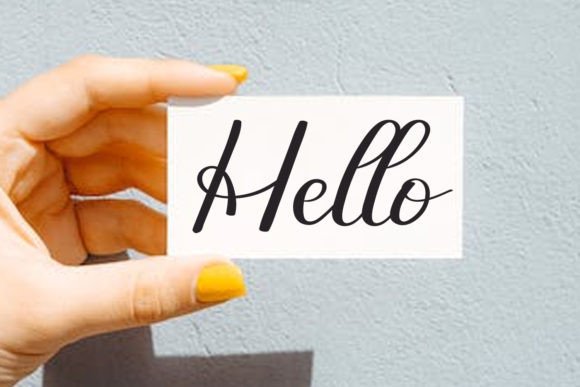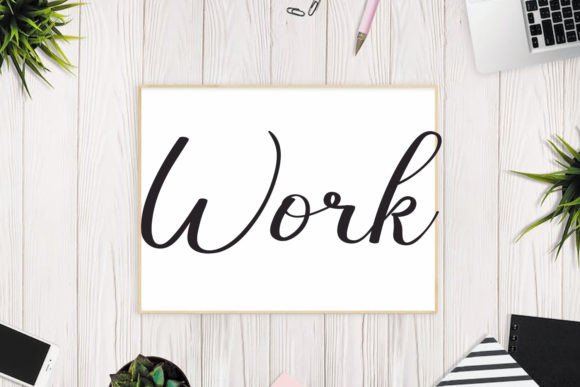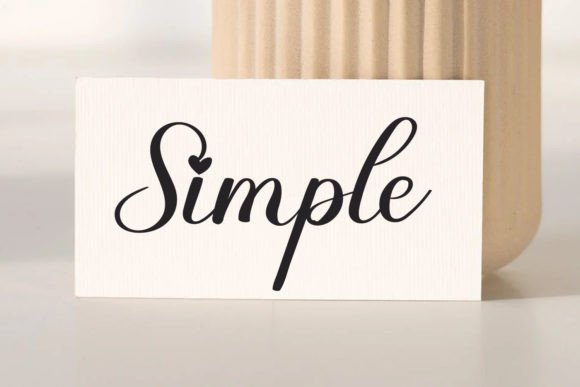
Introducing Christmas Font: A Fresh and Beautiful Handwritten Font for Your Design Needs
Are you looking for a font that captures the essence of the holiday season? Look no further than Christmas Font, a fresh and beautiful handwritten font that’s perfect for a wide range of design purposes. From YouTube banners and cover logos to wedding invitations, ID cards, flyers, and crafts, this versatile font is sure to add a touch of festive flair to your designs.
What Makes Christmas Font So Special?
Christmas Font is a unique and elegant handwritten font that’s been carefully crafted to evoke the magic and wonder of the holiday season. Its fresh and beautiful design makes it perfect for designers and crafters who want to add a personal touch to their work. Whether you’re creating a festive YouTube banner, a wedding invitation, or a handmade craft, this font is sure to impress.
Key Features of Christmas Font
- Handwritten Design: Christmas Font features a beautiful handwritten design that’s perfect for adding a personal touch to your designs.
- Fresh and Beautiful: This font’s fresh and beautiful design makes it perfect for a wide range of design purposes, from festive holiday designs to more formal applications like wedding invitations and ID cards.
- Versatile: Christmas Font is a versatile font that can be used for a wide range of design purposes, including YouTube banners, cover logos, wedding invitations, ID cards, flyers, crafts, and more.
- Easily Readable: This font is designed to be easily readable, making it perfect for designs that require a clear and concise message.
Uses for Christmas Font
Christmas Font is a versatile font that can be used for a wide range of design purposes. Here are some ideas to get you started:
- YouTube Banners and Cover Logos: Add a touch of festive flair to your YouTube channel with a Christmas Font banner or cover logo.
- Wedding Invitations: Make your wedding invitation stand out with a beautiful Christmas Font design.
- ID Cards: Create professional-looking ID cards with a touch of personality using Christmas Font.
- Flyers: Create eye-catching flyers for your business or event with Christmas Font.
- Crafts: Add a personal touch to your handmade crafts, such as cards, gift tags, and more, with Christmas Font.
Tips for Using Christmas Font
Here are some tips for getting the most out of Christmas Font:
- Experiment with Different Sizes and Colors: Don’t be afraid to experiment with different sizes and colors to find the perfect look for your design.
- Pair with Other Fonts: Christmas Font pairs well with other fonts, so don’t be afraid to try pairing it with a bold font for headings or a clean font for body text.
- Use for Festive Designs: Christmas Font is perfect for festive designs, but don’t be afraid to use it for other designs that require a personal touch.
Christmas Font is a fresh and beautiful handwritten font that’s perfect for a wide range of design purposes. Its unique and elegant design makes it perfect for designers and crafters who want to add a personal touch to their work. With its versatility, readability, and festive flair, Christmas Font is sure to become a go-to font in your design arsenal.